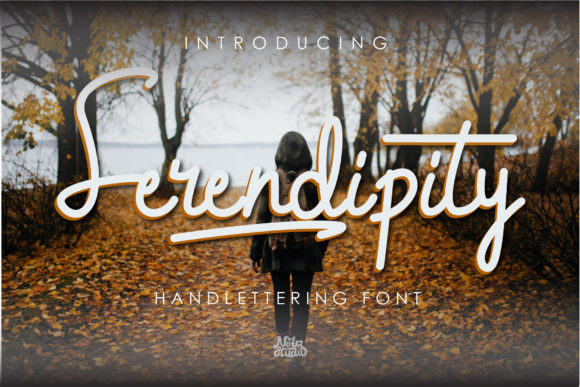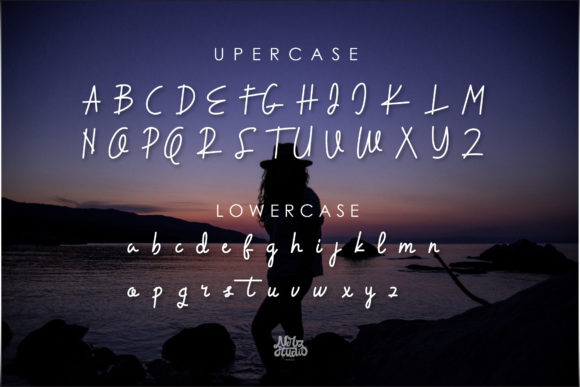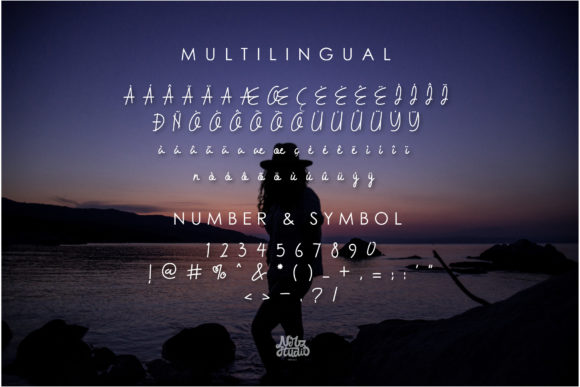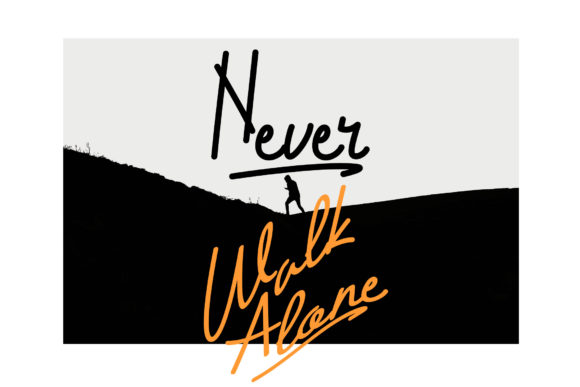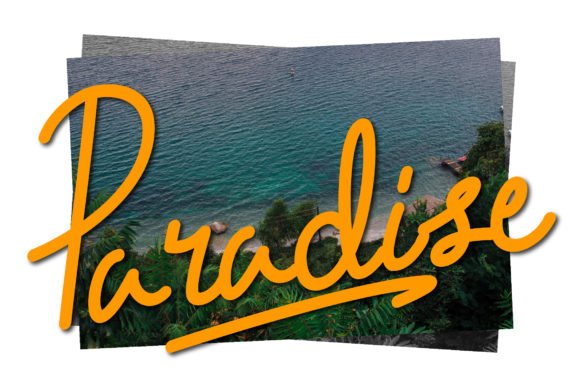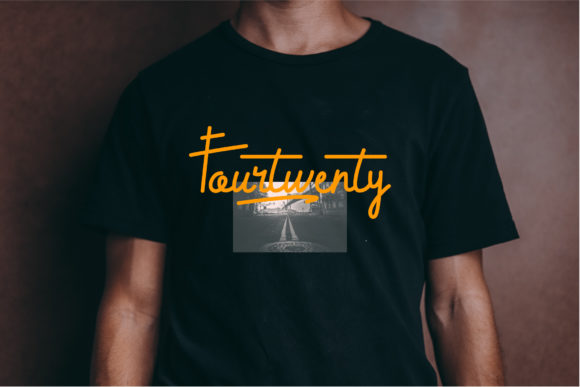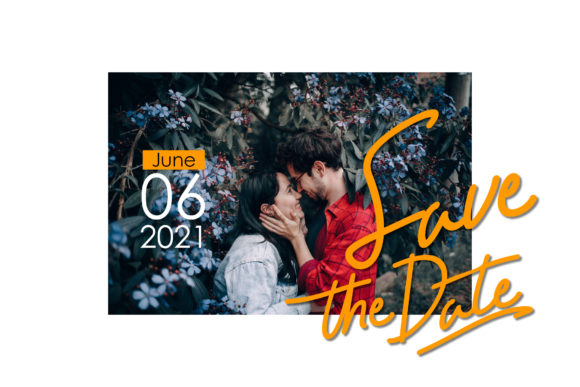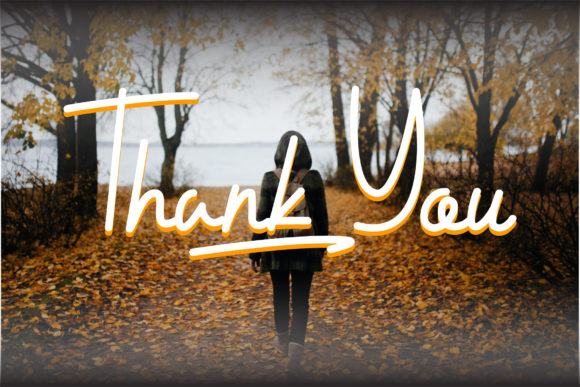
Serendipity Font
About Serendipity Font
Serendipity is a natural and sweet handwritten font. It maintains its classy calligraphic influences while feeling contemporary and fresh. Fall in love with it and bring your projects to the highest levels!